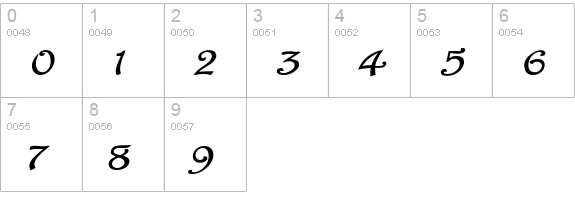
ParisianExtended Bold Italic Font Details
ParisianExtended Bold Italic is a strong, high-contrast, italic variant in the ParisianExtended typeface family \xE2\x80\x94 well suited to headlines, attention-grabbing titles, and strong calls-to-action.
ParisianExtended Bold Italic font is a stunning and sophisticated typeface that embodies the elegance and charm of the city of Paris. Its bold and italic design adds a touch of flair and modernity to any project, making it perfect for headlines, logos, and branding materials. With its clean and contemporary letterforms, ParisianExtended Bold Italic font is versatile and adaptable, able to effortlessly convey both a sense of luxury and a lively, energetic vibe. The combination of boldness and italic slant creates a visually striking look that commands attention and adds a touch of drama to any design. This font is not only visually captivating but also highly legible, ensuring that your message is conveyed clearly and effectively. Its carefully crafted curves and details make it a joy to read, whether in print or on digital screens. What sets ParisianExtended Bold Italic font apart is that it is freely available to download at FontsMarket.com. This means that you can access and use this stunning font without any cost, allowing you to add a touch of Parisian elegance to your projects without breaking the bank. Whether you're designing a wedding invitation, a restaurant menu, or a fashion magazine, ParisianExtended Bold Italic font is the perfect choice to bring a touch of sophistication and style. It is a versatile and timeless typeface that will elevate your designs, making them truly unforgettable. So why wait? Visit FontsMarket.com today and download ParisianExtended Bold Italic font for free to add a touch of Parisian flair to your next project.